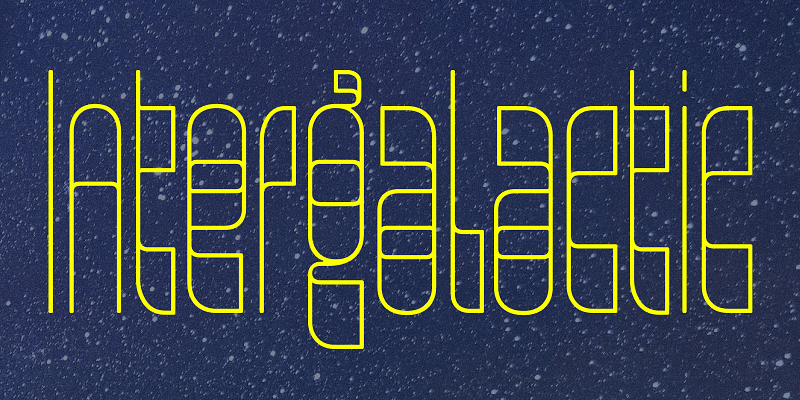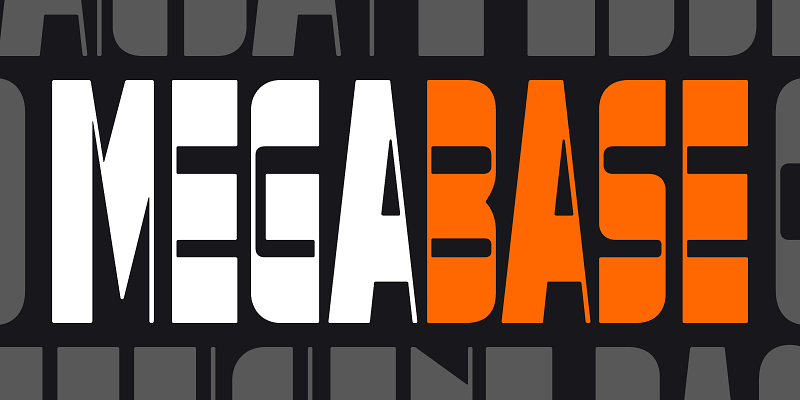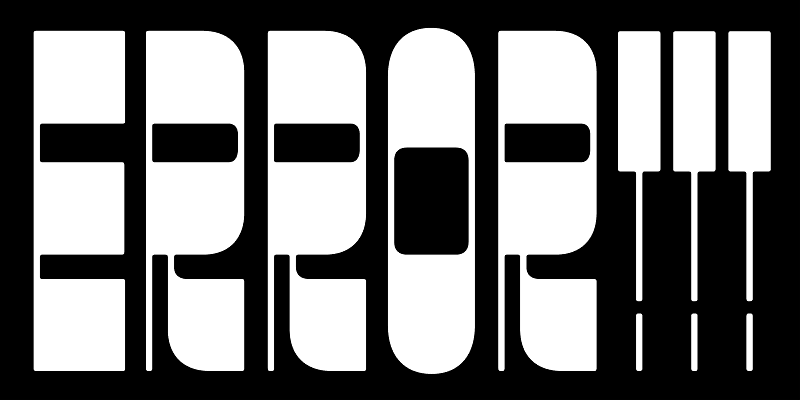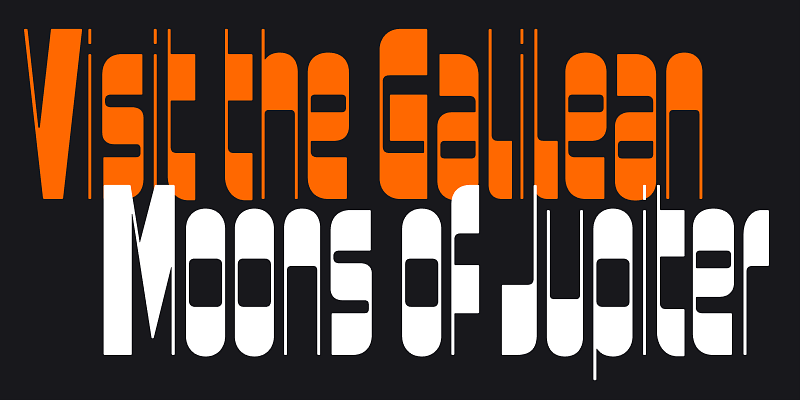
Megabase is a display gothic with strong horizontal stress inspired by the clunkiness of 19th-century gothics like Gothic Bold and the space-age funkiness of 1970s designs such as Aldo Novarese’s Sintex and Bob Newman’s Zipper. Megabase goes beyond its forebears in emphasizing its horizontality; while most typefaces strive for an even typographic color, Megabase embraces its unevenness, allowing topheavy, bottomheavy, and diagonal forms to stick out like sore thumbs. The typeface offers several variants of especially disruptive letters, allowing the designer to calibrate these interruptions.
David Jonathan Ross draws letters of all shapes and sizes for custom and retail typeface designs from his studio in the woods of Western Massachusetts. A native of Los Angeles, He began drawing typefaces at Hampshire College and joined The Font Bureau in 2007 where he honed his bézier-wrangling skills. Now he publishes his typeface designs at his own foundry, DJR, as well as working on projects with Type Network and developing unusual display faces for his Font of the Month Club.